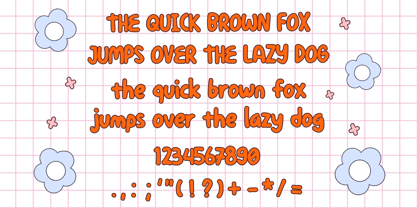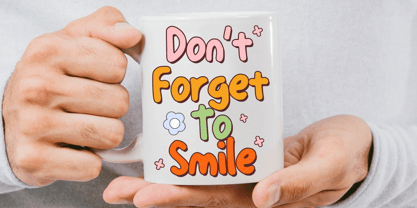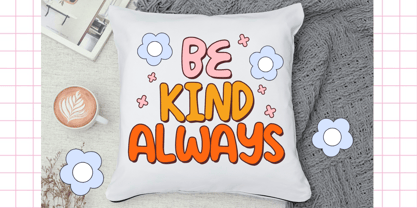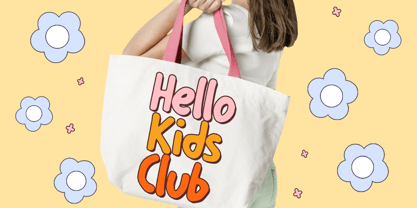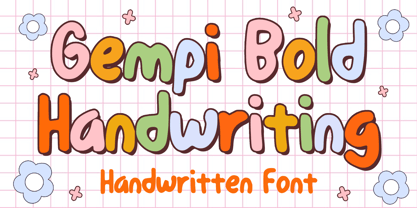
Gempi Bold Handwriting
A família de fontes Gempi Bold Handwriting foi desenhada por Gabriel Valentinus e publicada pela Mvmet. Gempi Bold Handwriting contém 1 estilos. Saiba mais sobre esta família
Gempi Bold Handwriting is a bold, playful, and versatile comic font that infuses a fun element into your design projects. Ideal for a wide range of applications, this font enhances stickers, t-shirt designs, eye-catching logo creations, magazine and book covers, comics, cartoon illustrations, daily typing, and more. With its distinctive style, Gempi Bold Handwriting adds a unique flair to any design, making it an excellent choice for creative endeavors such as branding, web design, and editorial projects.
Designers: Gabriel Valentinus